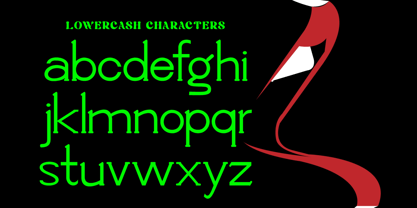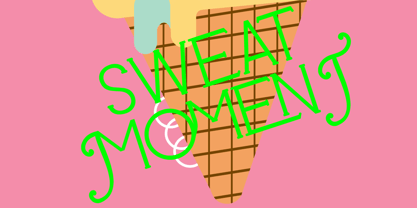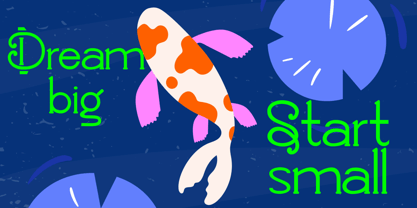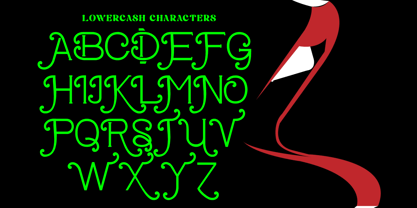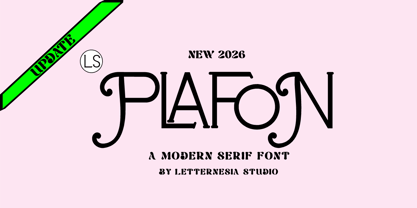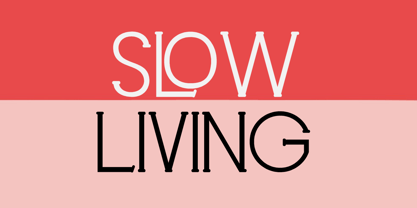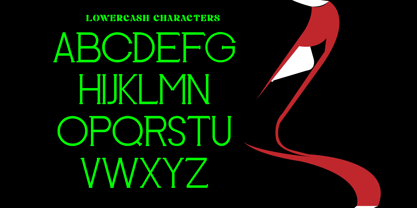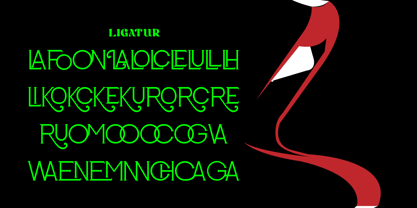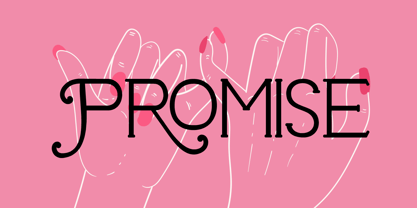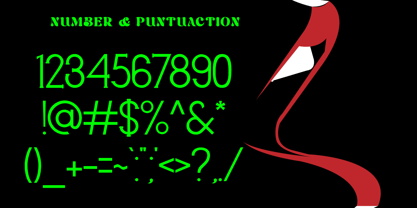
Lsplafon
von Letternesia studio
Die Schriftfamilie Lsplafon wurde von Ta Siyo entworfen und von Letternesia studio veröffentlicht. Lsplafon enthält 2 Stile und Familienpaketoptionen. Mehr über diese Familie
LSPLAFON is a bold and modern display typeface designed to deliver strength, clarity, and professional character. Built with solid letterforms and balanced proportions, this font projects confidence and reliability—making it perfect for construction, interior design, and building material branding. Its clean yet distinctive structure allows LSPLAFON to stand out in large-scale applications while maintaining excellent readability. The strong visual presence makes it ideal for headlines, logos, signage, packaging, and promotional materials.
Designer: Ta Siyo
Aktuelle Foundry: Letternesia studio